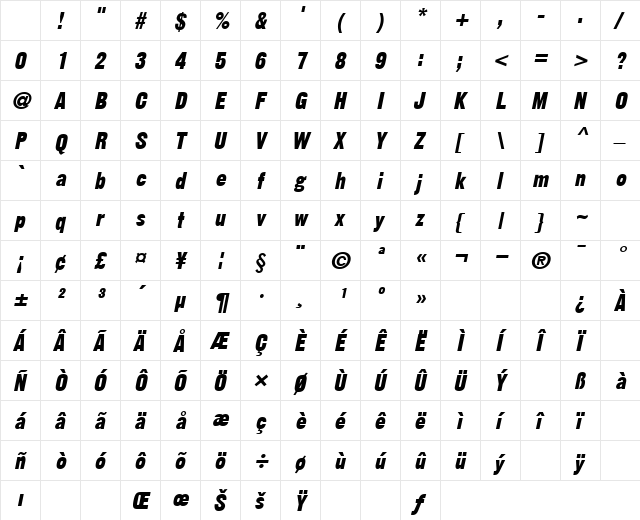
Complete Paeon Bold-Oblique glyph index. Displaying only characters natively supported by Paeon Bold-Oblique font.
Paeon is a composed and adaptable typeface that performs quietly and consistently across a wide range of design contexts. The slanted form adds forward momentum and visual energy. Its bold stroke weight gives it real presence on the page.